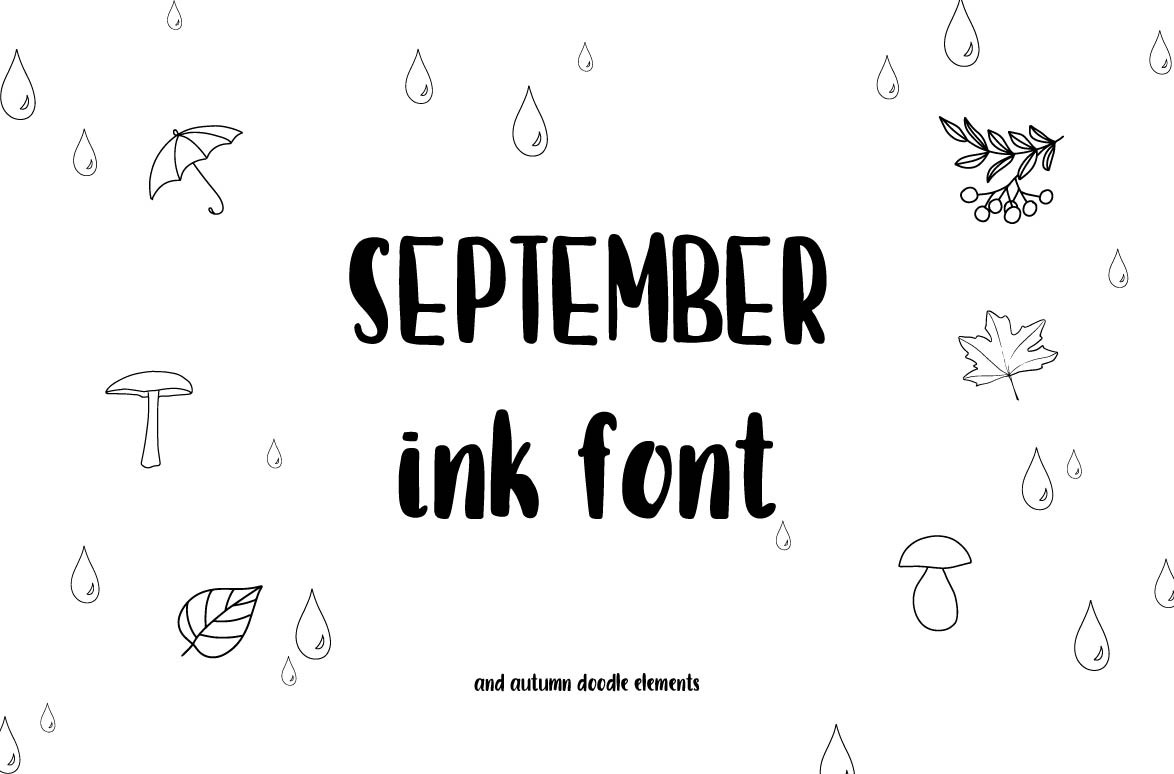
September font and doodles.
I present to You my new font created in September.
It is well suited for lettering, decals, postcards, and headlines.
And to make it easier and more fun to create cool and amazing things I added some more fall patterns)